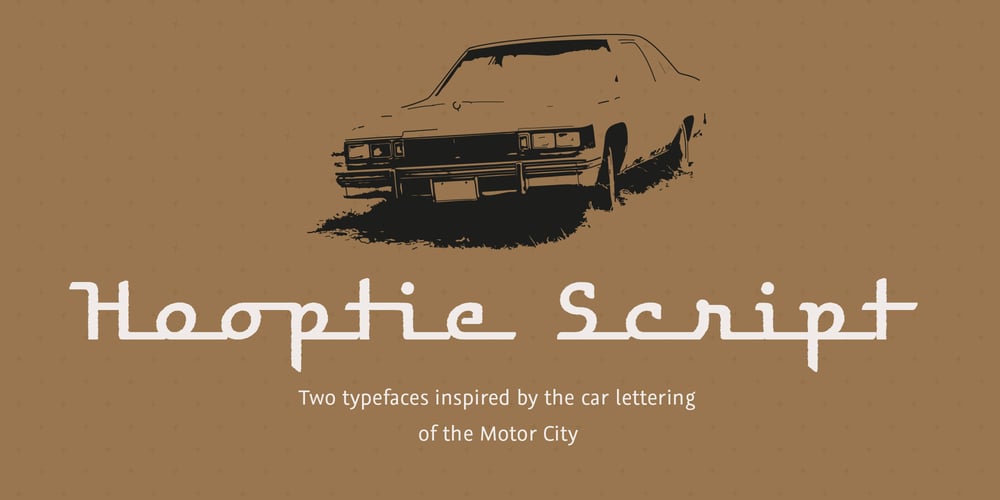
Hooptie Script Font Family was designed by Ralf Herrmann and published by FDI. Hooptie Script contains 5 styles and family package options. Two typefaces inspired by the car lettering of the Motor City. In contrast to other car script fonts, the Hooptie Script fonts make full use of modern OpenType technology. Just turn on contextual alternates and ligatures and watch how each letter pair always connects perfectly. The full package includes seven bonus vector images of vectorized hooptie cars. Check out the type specimen for more details.